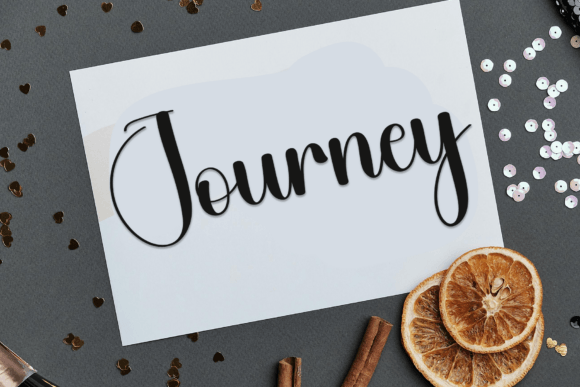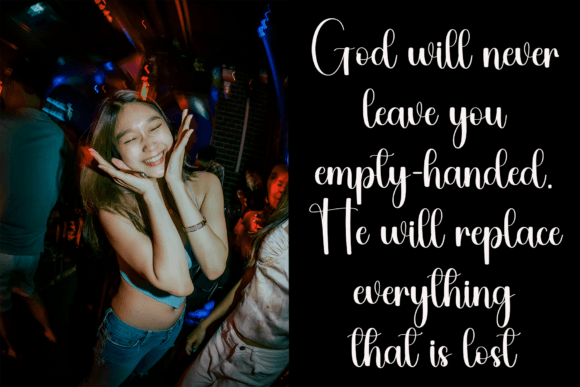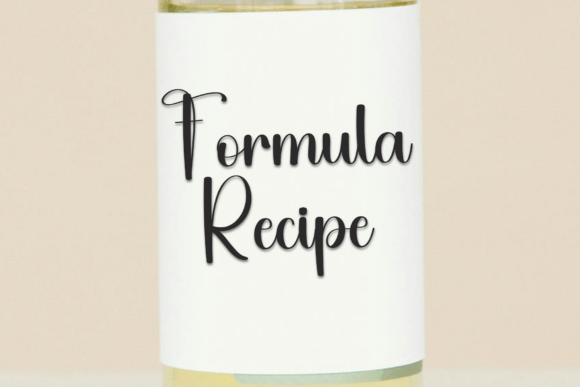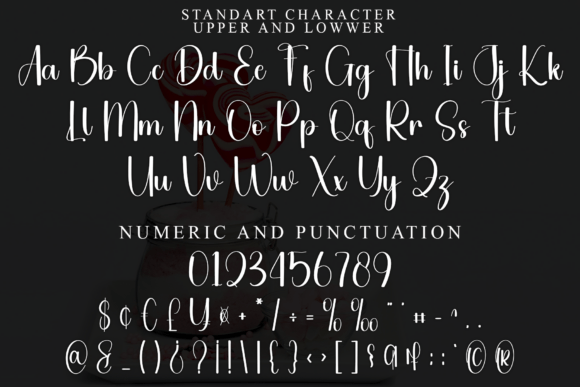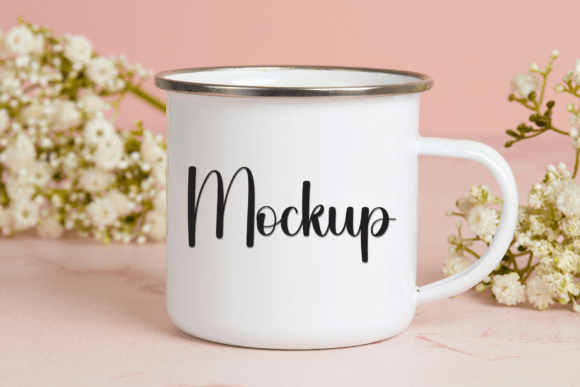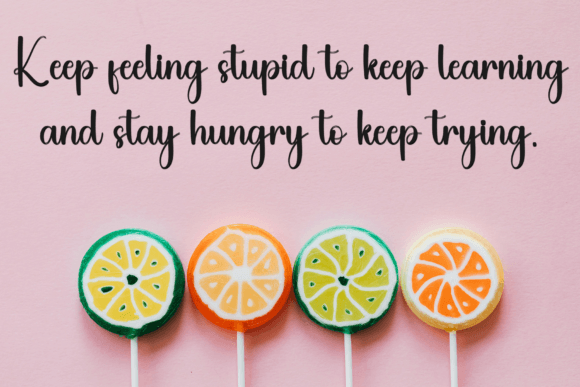
The Magic of Cutting Font: Elevate Your Holiday Designs
It’s that time of the year again – the season of joy, giving, and, of course, designing festive projects! I still remember the year I was tasked with creating a holiday-themed greeting card for a client. I spent hours scrolling through font libraries, searching for the perfect typeface that would capture the essence of the season. That’s when I stumbled upon Cutting Font, a beautiful, festive typeface that instantly brought my designs to life.
An Honest Review of Cutting Font
So, what makes Cutting Font so special? Let’s dive into the good stuff! 😊
- ✨ Festive and Whimsical: Cutting Font is designed to bring a touch of magic to your holiday designs. Its decorative elements and playful flair make it perfect for creating cheerful and nostalgic projects.
- 🎉 Versatile: Whether you’re designing greeting cards, gift tags, or holiday-themed projects, Cutting Font is the perfect choice.
Now, let’s talk about a few quirks ⚠️. While Cutting Font is an amazing typeface, it’s essential to note that:
- 🤔 Some glyphs require manual adjustment: Due to the font’s complex design, some glyphs might require manual adjustment to ensure proper spacing and alignment.
The Story Behind Cutting Font
While the true story behind Cutting Font remains a mystery, it’s clear that the designer was inspired by the magic of the holiday season. Imagine a snowy evening, surrounded by twinkling lights, and the sound of carolers filling the air. That’s the feeling that Cutting Font embodies.
| Is Cutting Font suitable for body text? | While Cutting Font is a beautiful typeface, it’s best suited for headlines, titles, and short paragraphs. For body text, consider a clearer, more legible font. |